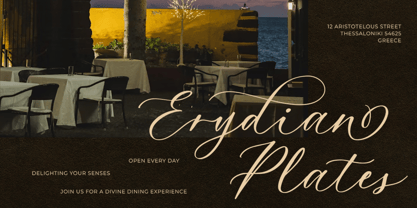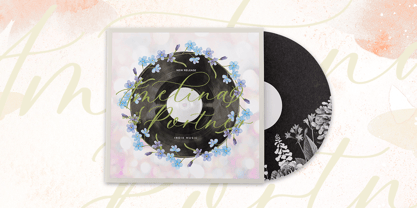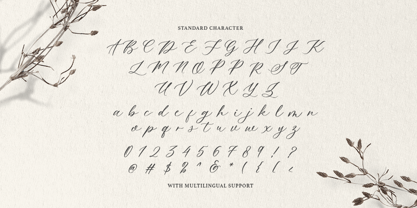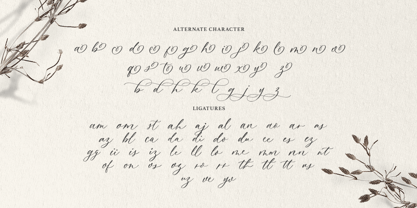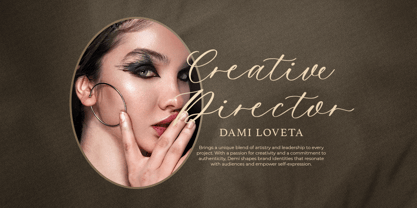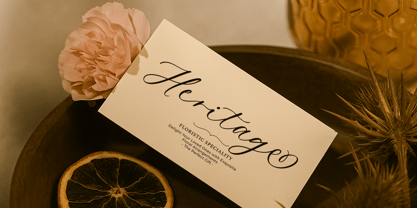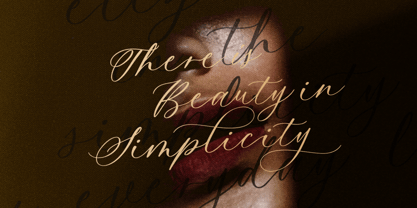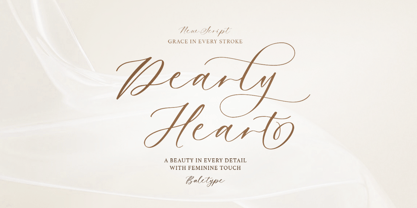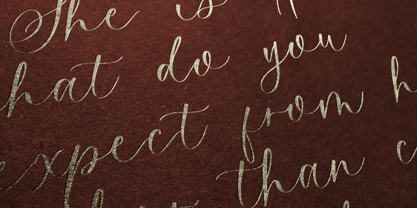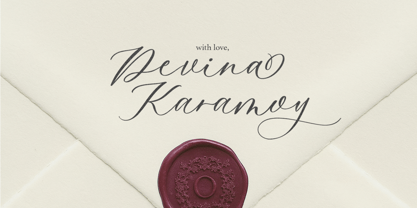
Dearly Heart
The Dearly Heart Font Family was designed by Dzikrul Aulia and published by Bale Type. Dearly Heart contains 1 styles. More about this family
Dearly Heart is a handwritten calligraphy script with elegant and romantic touch. You can use this font for any purposes such signature logo, branding, or quotes. This script also good for wedding invitations. Dearly Heart also contains ligatures and alternates that will make your project looks stunning and more stand out. This font support multi language.